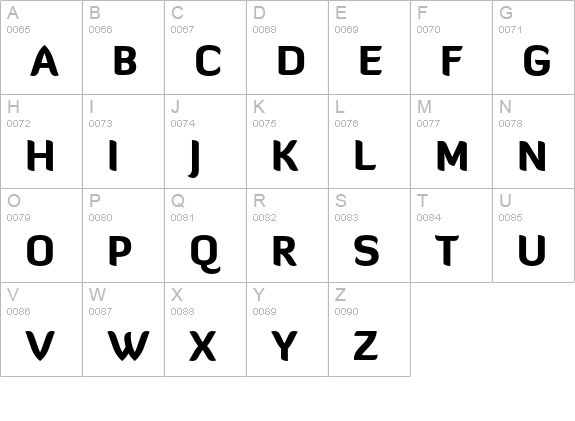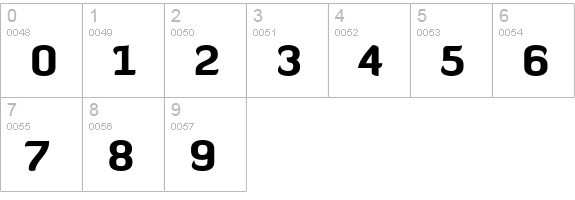
Diavlo Black Regular is a maximum-weight, dramatic variant in the Diavlo typeface family \xE2\x80\x94 well suited to maximum-impact headlines, posters, and packaging.
Diavlo Black Regular is a bold and eye-catching font that exudes strength and modernity. With its sharp edges and clean lines, this typeface is perfect for creating impactful headlines, logos, and posters. The sleek and contemporary design of Diavlo Black Regular makes it ideal for projects that require a strong visual presence. The best part about Diavlo Black Regular is that it is completely free to download at FontsMarket.com. This means you can easily access this stylish font for your design projects without any cost. Whether you are a professional designer looking for a versatile typeface or a hobbyist looking to add a touch of sophistication to your creations, Diavlo Black Regular is the perfect choice. Don't miss out on the opportunity to enhance your designs with the striking and bold aesthetics of Diavlo Black Regular. Download it for free today and start creating visually stunning artwork that will leave a lasting impression.